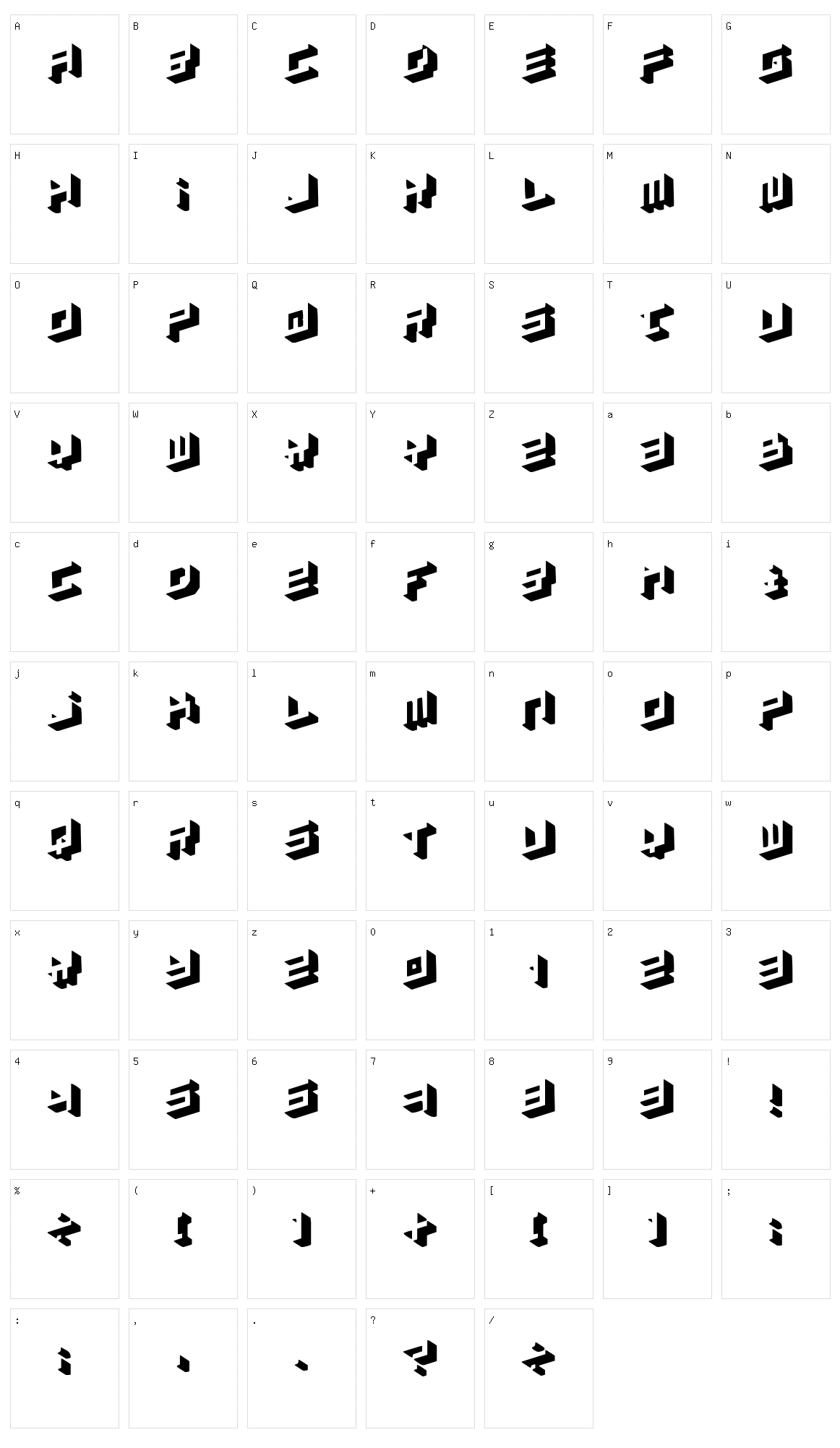
The free font Simpletype is carefully designed by Fenotype, showcasing a thoughtful balance of creativity and usability and falls under the Square font style. When you download the ZIP file, it contains only 14.79 KB of font files, making it lightweight and quick to download. Please review the license details below to understand permitted usage and distribution rights. If license information is not available, we recommend using this font for personal projects only or contacting the author directly for commercial usage permissions.